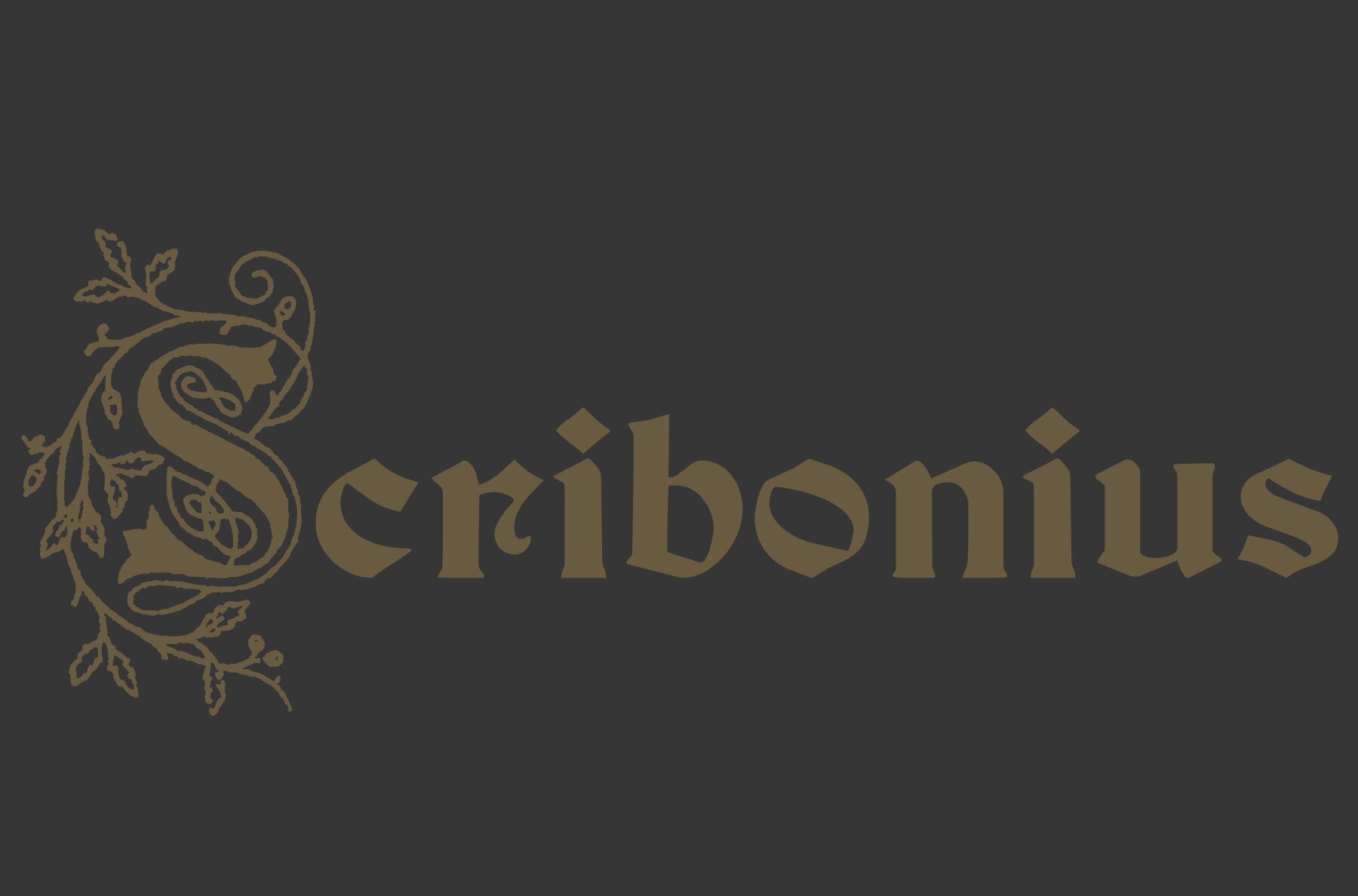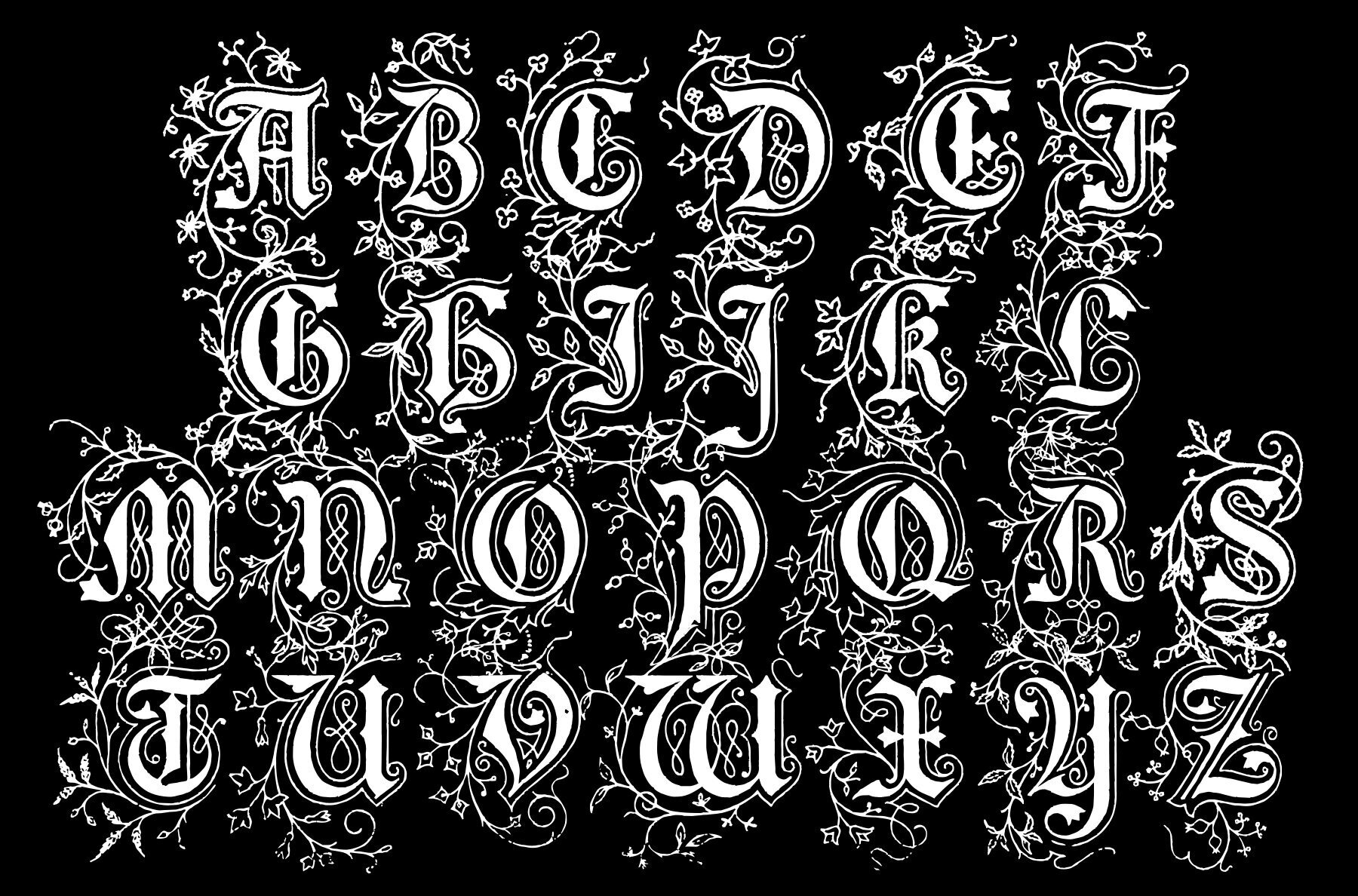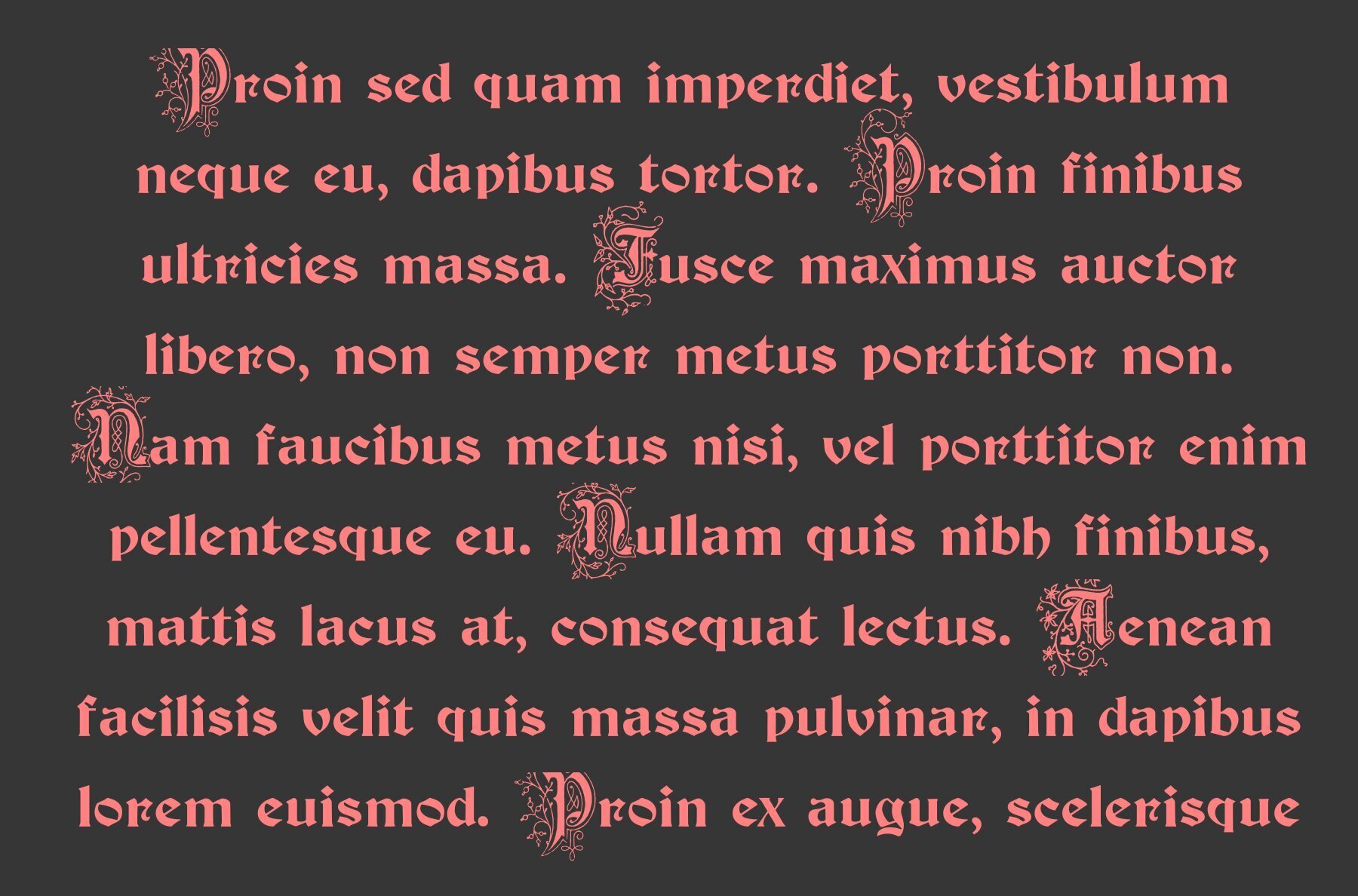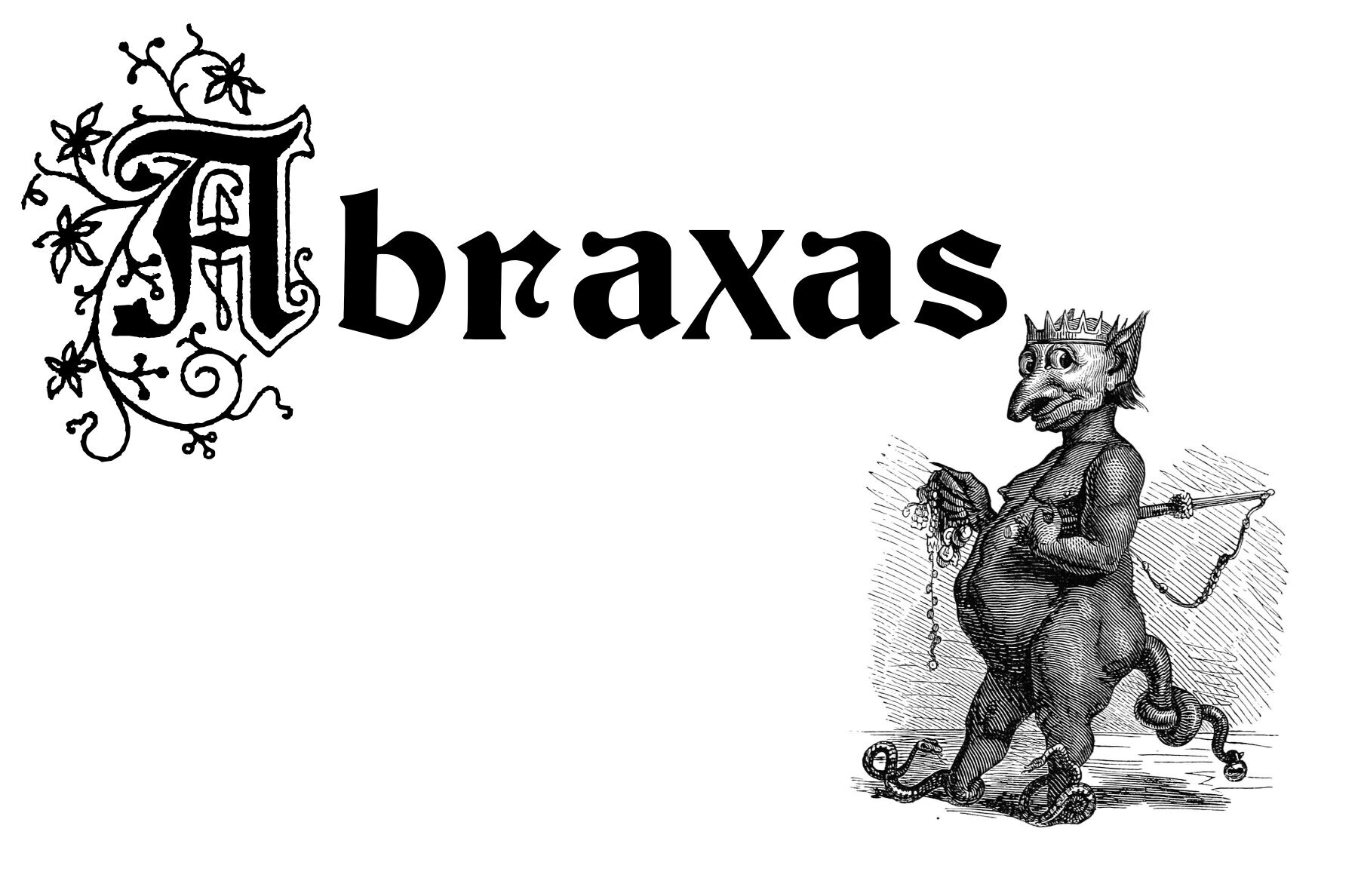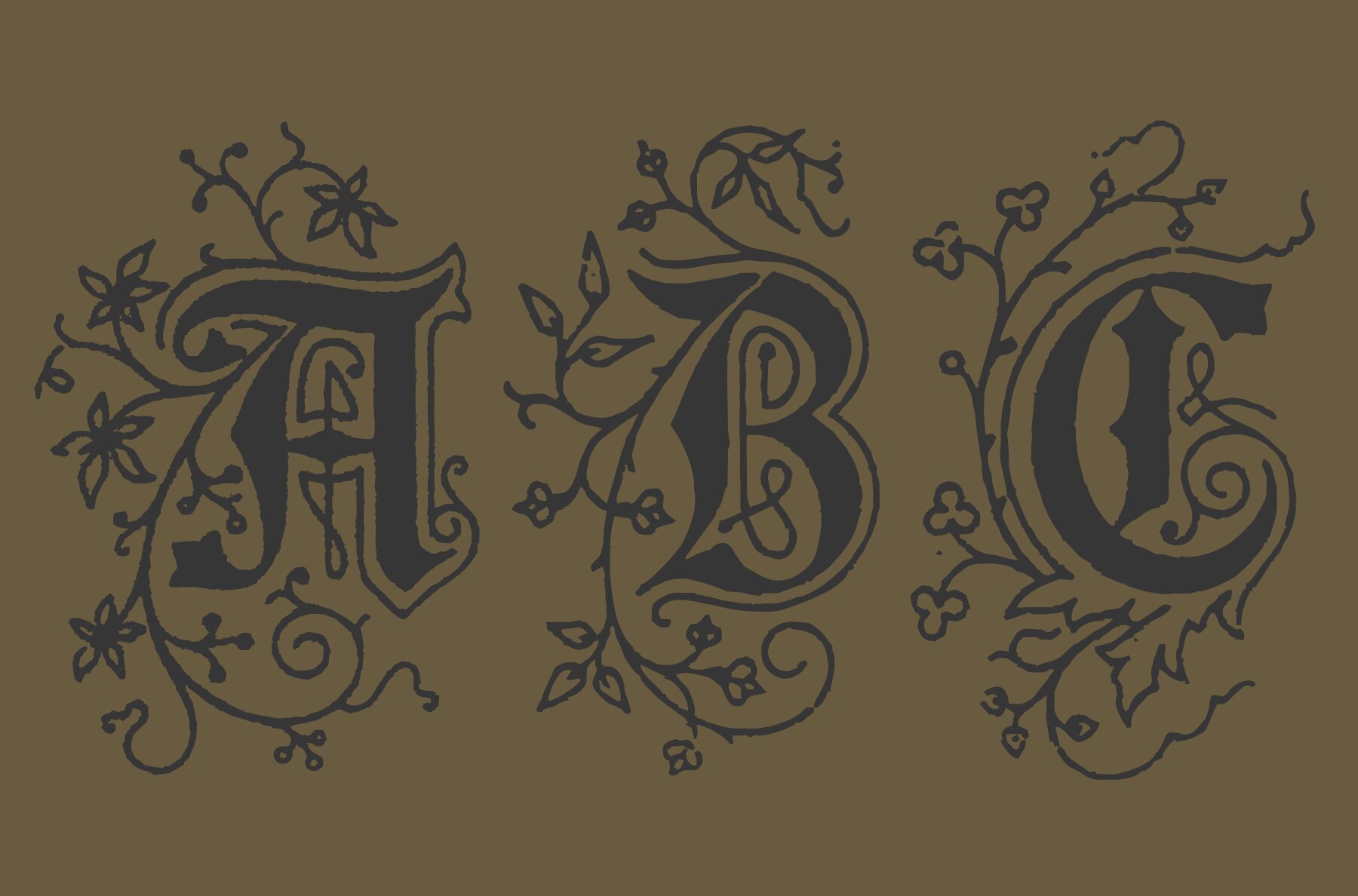
Scribonius GTSLB Font
Scribonius GTSLB Medium
Blackletter typefaces, also known as Gothic, Fraktur, or Old English, have been used in the headings and initial chapters of books. This style of typeface is recognizable by its dramatic thin and thick strokes, and in some fonts, the elaborate swirls on the serifs. Blackletter typefaces are based on early manuscript lettering and evolved in Western Europe from the mid twelfth century. They are best used for headings, logos, posters, and signs, as they are not easy to read in body texts. Blackletter was type that emulated the most common handwritten scripts of the era and was used for books of hours and initial chapters of books Brazilian type designer Paulo W created this font ideally suited for advertising and packaging, festive occasions, editorial and publishing, logo, branding and creative industries as well as poster and billboards. An elegant and clean typeface, with two harmonic blackletters styles, the bold lowercases with beaufitul ornamented initials. A classic decorative design around an antique theme: The headings of gothic texts, this font works great in display purposes.